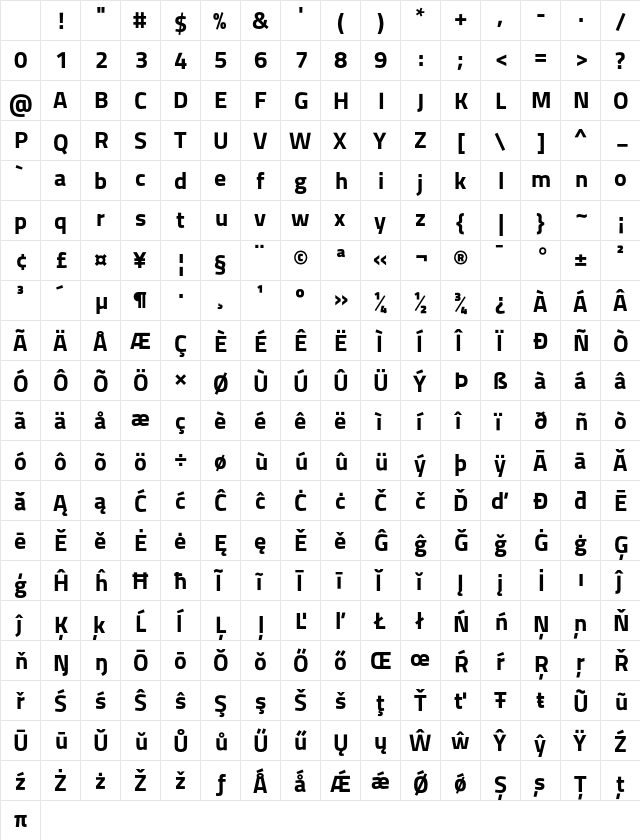
Complete Titillium Bd Bold glyph index. Displaying only characters natively supported by Titillium Bd Bold font.
Titillium Bd is a composed and adaptable typeface that performs quietly and consistently across a wide range of design contexts. Its bold stroke weight gives it real presence on the page.